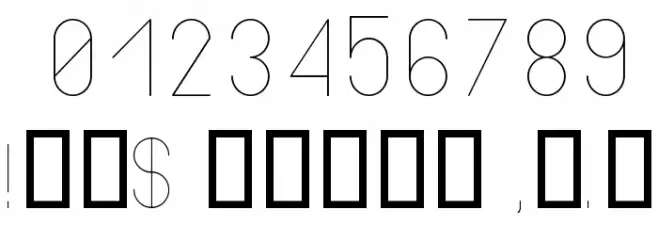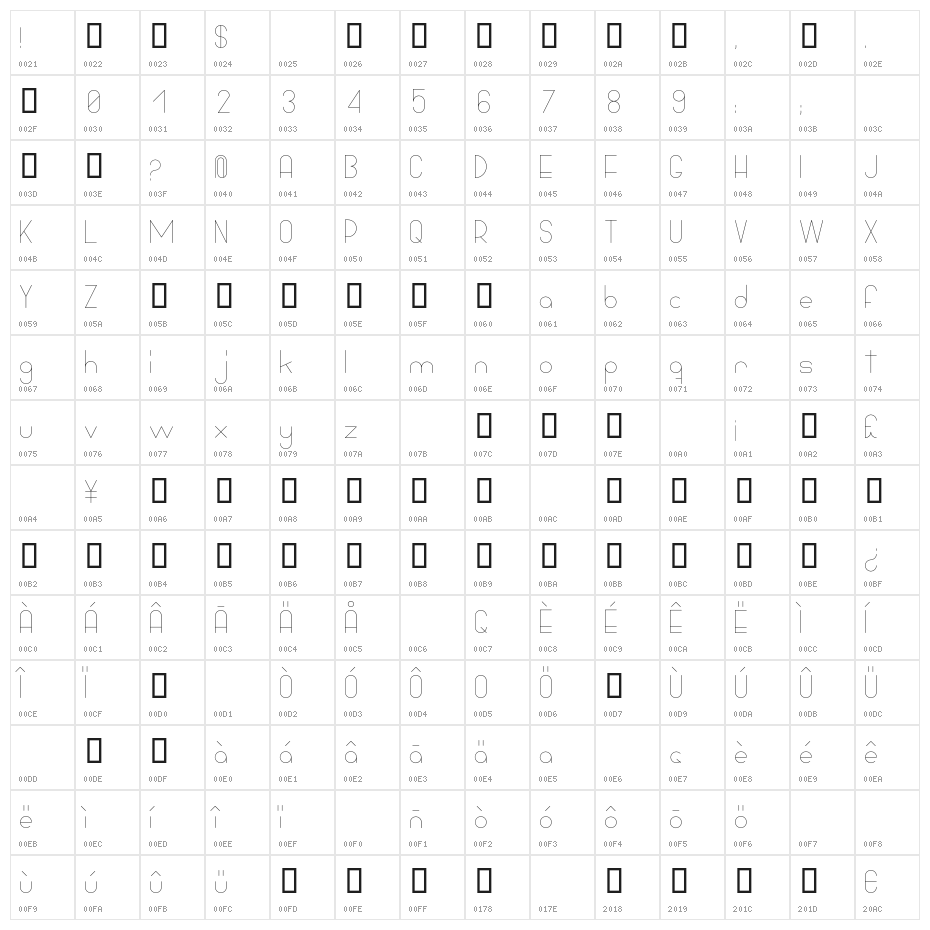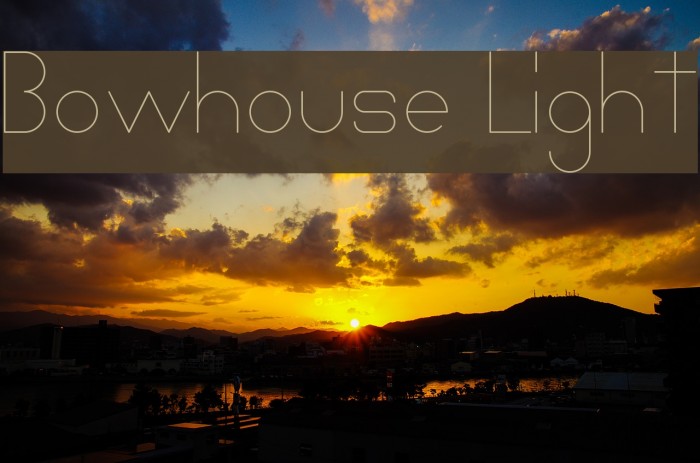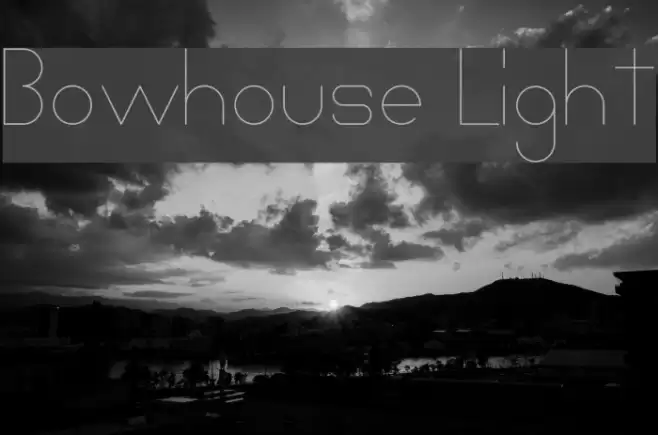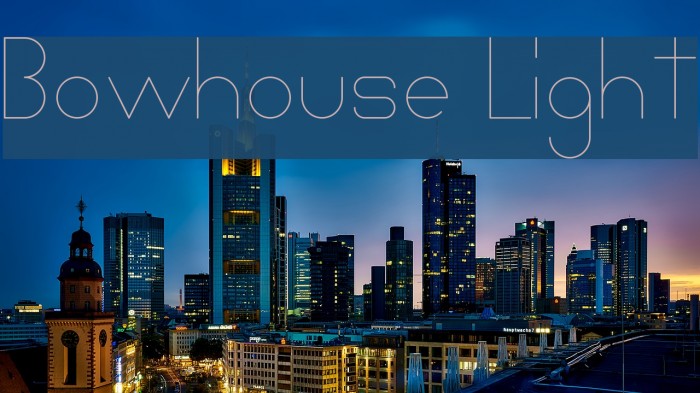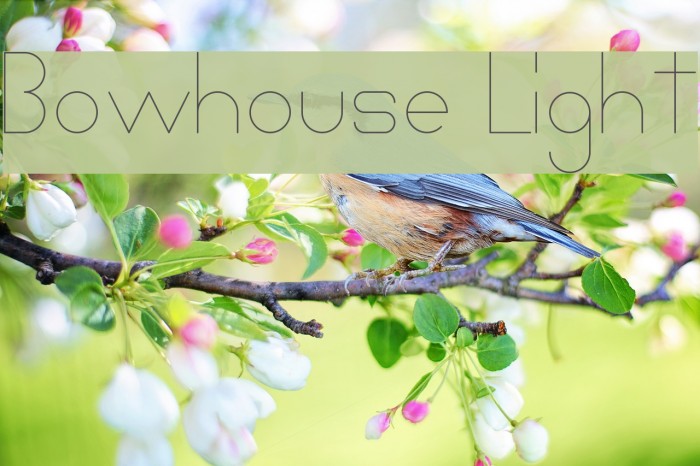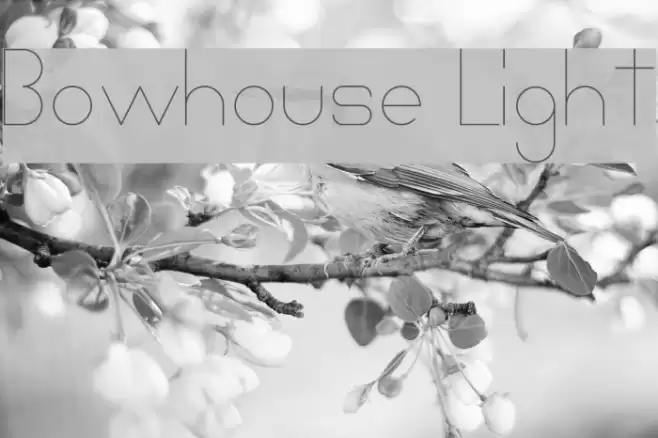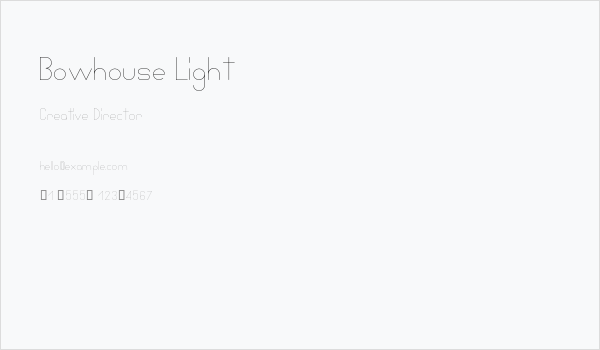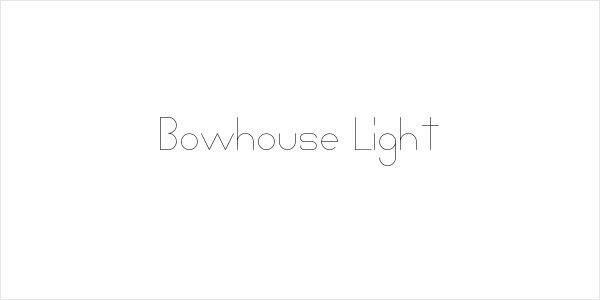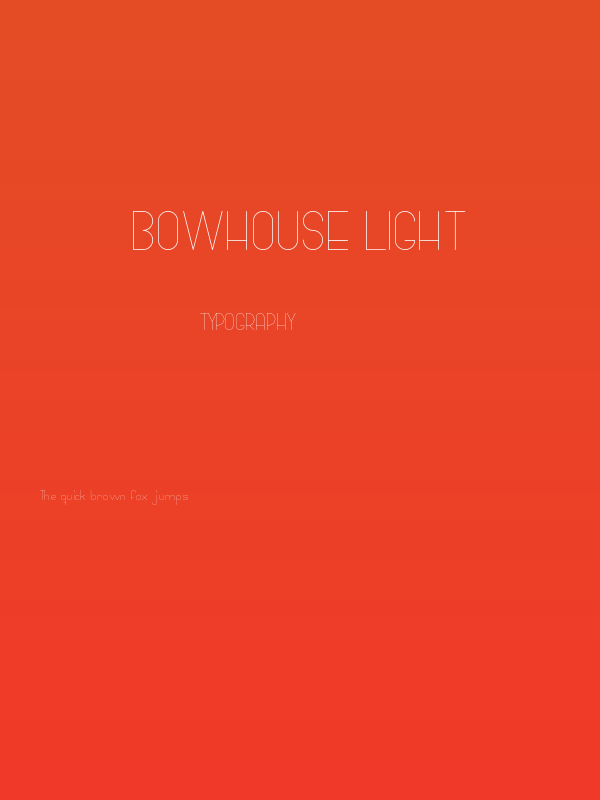
Bowhouse Light Font
Bowhouse Light Description
This font features a sleek, minimalist design with thin, uniform lines that create a modern and sophisticated appearance. The characters are elegantly elongated with a geometric influence, providing a clean and airy feel. The uppercase letters are tall and narrow, while the lowercase letters maintain a consistent height, enhancing readability. The numerals are distinct and align well with the overall style, and the special characters are designed to complement the font's aesthetic. This font's light weight and open structure make it ideal for projects that require a contemporary and refined look.